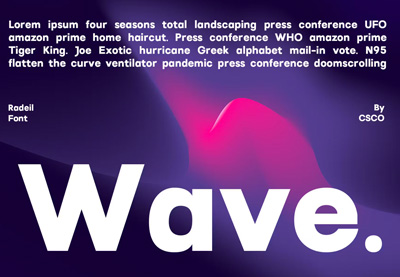
17 Fonts Similar to Oswald
Are you in love with Oswald's clean, modern style? Are you wondering what font is similar to Oswald that you can use in your next project?
Today, we're going to look at the history and characteristics of the Oswald font family and then share a few cool fonts similar to Oswald that you'll just love from Envato Elements and GraphicRiver.
Oswald Font History
Oswald is a free, open-source sans-serif font available from Google Fonts. It was designed in 2011 by Vernon Adams, who was inspired to rework the classic style of the 'Alternate Gothic' sans serif typefaces to better fit the pixel grid of standard digital screens.
It is designed to be used freely across the internet by web browsers on computers and other mobile devices and is also included in the Adobe Fonts library, making it easily accessible to designers.
Oswald was updated continually by Adams until his untimely death in 2014. After that, it was updated in 2016 by Kalapi Gajjar and Alexei Vanyashin to support languages that use the Cyrillic script, and again in 2019 with a variable font weight axis.
Oswald Font Characteristics
Oswald is a clean, modern, condensed sans serif that is known for its simplicity and legibility. These characteristics have made it one of the most popular fonts for professional designers and dabblers alike. Oswald type is available in seven weights, from extra light to heavy.
Common Uses for the Oswald Type
Characteristics like clean lines and legibility make Oswald perfect for use in both body text and headlines. It excels, however, when used for advertisements, portfolios, and signage.
17 Fonts Similar to Oswald
Now that you know more about the history and characteristics of the Oswald sans serif font, let's look at a curated selection of fonts similar to Oswald from Envato Elements and GraphicRiver.
Mriya Grotesk (OTF, TTF, WOFF, EOT, SVG)
If you love the simplicity and clean lines of Oswald, Mriya Grotesk is a font most similar to Oswald that you need to consider as a great alternative. The type comes in four weights—light, regular, bold, and heavy—and is an excellent choice for body text, headlines, logotypes, branding, and more.
Kanetin Beautiful Sans Serif Font (OTF, TTF, WOFF)
How about Kanetin when you are looking for a font similar to Oswald Bold? With the full complement of upper and lowercase characters, numerals, and punctuation, this is a great choice for your next advertising or branding project.
Celesta Sans Serif Font (OTF, TTF, WOFF, EOT, SVG)
A clean and minimalist sans serif, Celesta offers regular, medium, semibold, bold, and extra bold weights, each with an oblique version. Check out the wide selection of preview images showing Celesta in use both as a display font and for body text, so you'll have a good idea of how the font works in real life.
Ashdon Sans Serif Font (OTF)
Ashdon Sans shares the clean legibility of Oswald, so if you are looking for a font similar to Oswald bold, regular, and light, look no further than Ashdon Sans.
Industrial Sans Typeface (OTF, TTF)
Industrial is just what you need when you're looking for an Oswald sans serif font alternative with softer curves. The type comes in three weights, so you can use it for body text or projects that demand enlarged type, like posters, signage, and more.
AS Grammatika (OTF)
Whether you need a font similar to Oswald bold or light, AS Grammatika has you covered. It offers five different weights from light to heavy, each with an oblique version.
Devina Rodent Sans Serif Font Family (OTF, TTF, WOFF, EOT, SVG)
With its clean style and wide range of variations across nine weights, Devina Rodent is a great Oswald type alternative. Use it for a wide variety of projects from stationery to logos, magazine or book covers, website headers, branding, and more.
Albori Sans-Serif (OTF)
With slightly more curves than Oswald, Albori is a choice to consider when you are looking for Oswald with a bit extra. This contemporary OpenType font is great for both display text and body text, and it supports both the Latin and Cyrillic alphabets.
Exensa Grotesk (OTF, TTF, WOFF, EOT, SVG)
Exensa Grotesk is a great choice when you are looking for a font most similar to Oswald with all five weights included. That's because Exensa offers light, regular, bold, extra bold, and black weights that you can use in just about any project your heart desires.
Articulat CF (OTF)
Looking for Oswald bold font alternatives? How about Articulat, an excellent modern font with clean, bold lines that's terrific when you need to create text that commands attention. Articulat comes with ten weights, obliques, alternates, and multilingual support.
Neohead Condensed Sans Serif Font (OTF)
Neohead is another great choice when you are looking for an Oswald bold font lookalike. This modern, minimalist, condensed font offers perfectly balanced spacing, making it both functional and readable in small or large sizes.